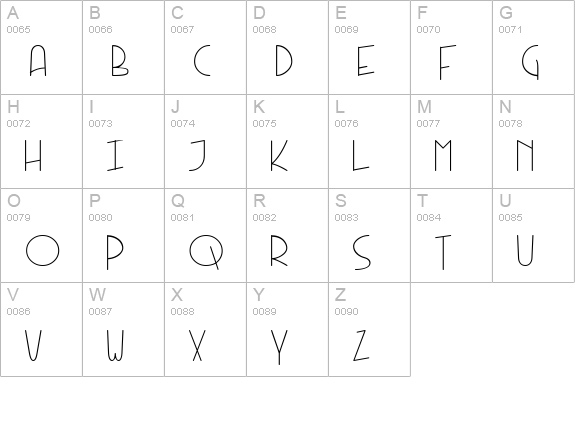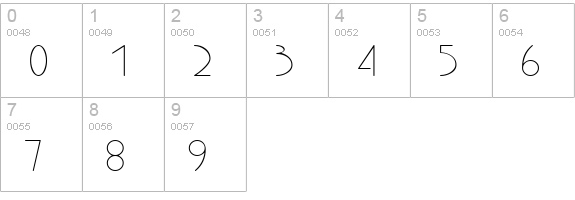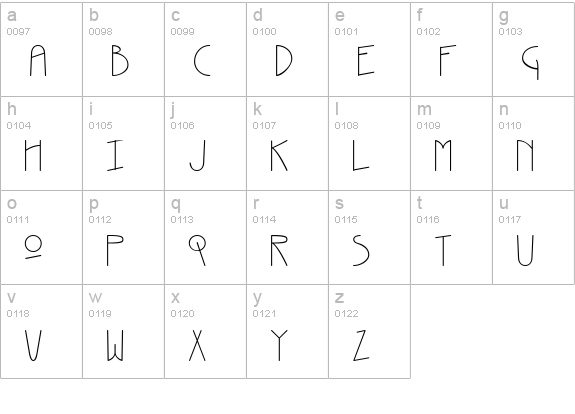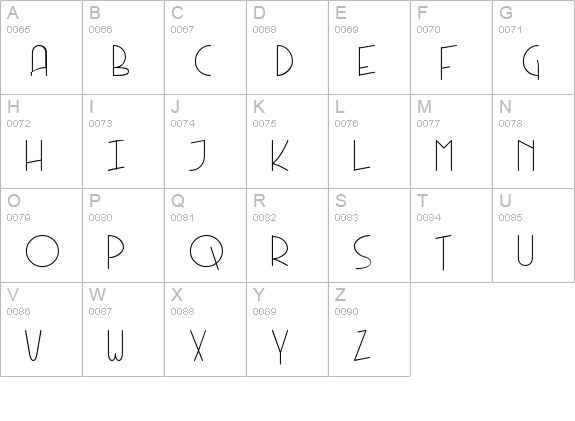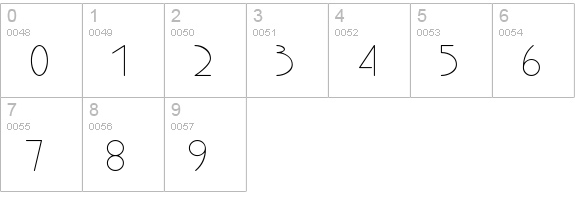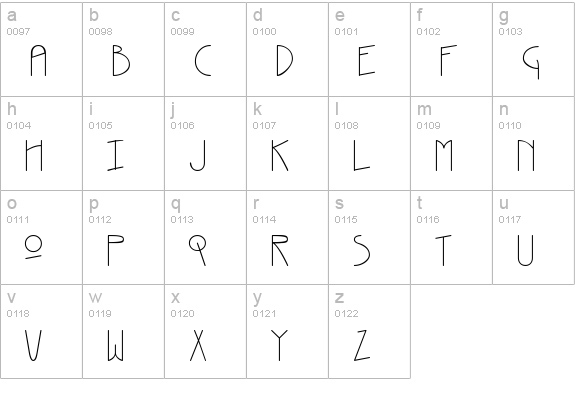
KneeblsThin is a stunningly elegant and slender font that exudes sophistication and grace. Its delicate curves and slender strokes give it a unique and refined appearance that is perfect for projects that require a touch of elegance. With its thin and graceful lines, KneeblsThin adds a sense of delicacy and finesse to any design. This font is ideal for various creative purposes such as branding, logo design, wedding invitations, and more. Its versatility allows it to be used in both print and digital media, ensuring that your message is delivered with utmost style and professionalism. One of the best things about KneeblsThin font is that it is absolutely free! You can easily download it from FontsMarket.com, a reputable online platform for high-quality fonts. By offering this font for free, the creators of KneeblsThin have made it accessible to everyone, allowing designers and enthusiasts alike to experience the beauty and versatility of this stunning typeface. Whether you are a professional designer or a passionate hobbyist, KneeblsThin font will surely captivate your imagination and elevate your creative projects to new heights. Its timeless appeal and exquisite design make it a must-have in your font collection. So don't wait any longer – head over to FontsMarket.com and download KneeblsThin for free today!